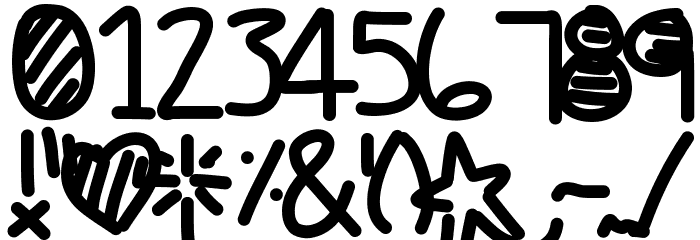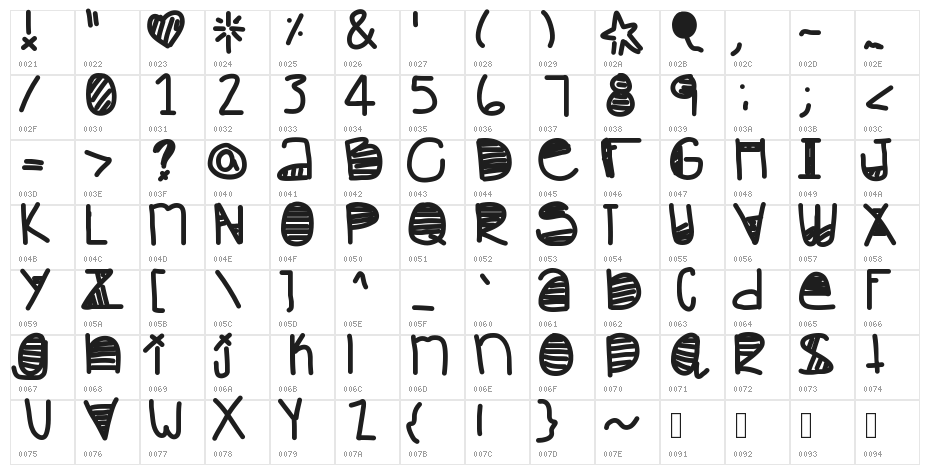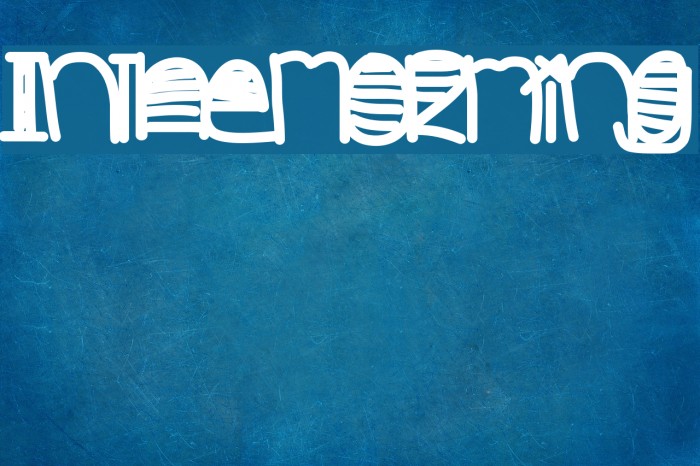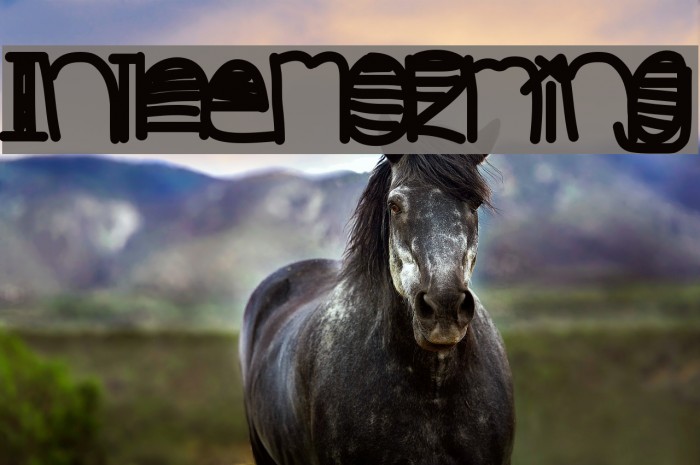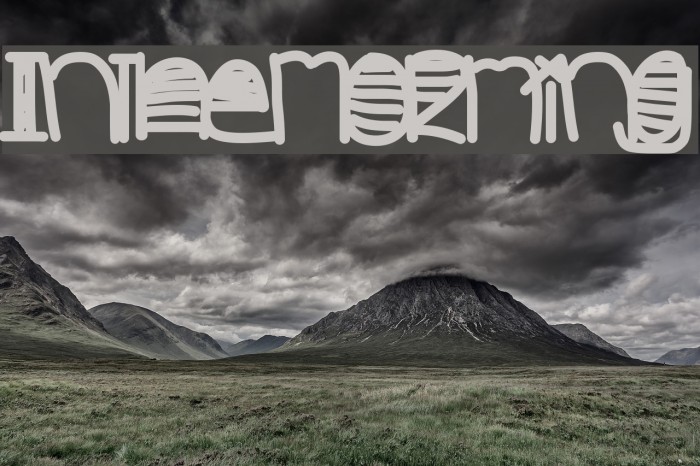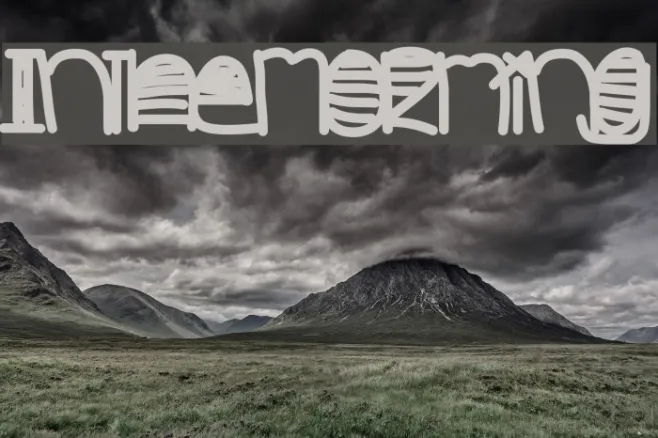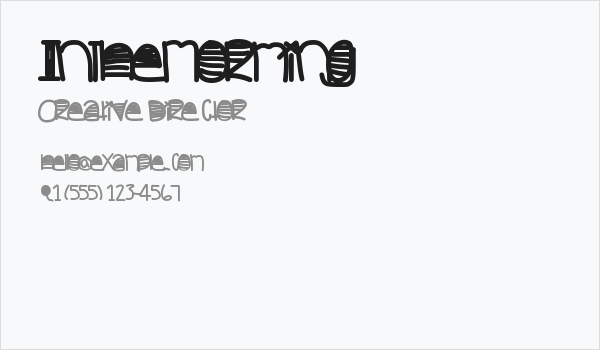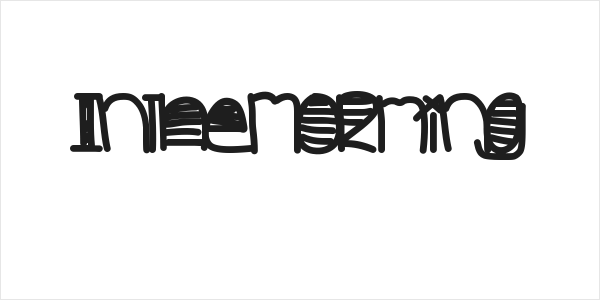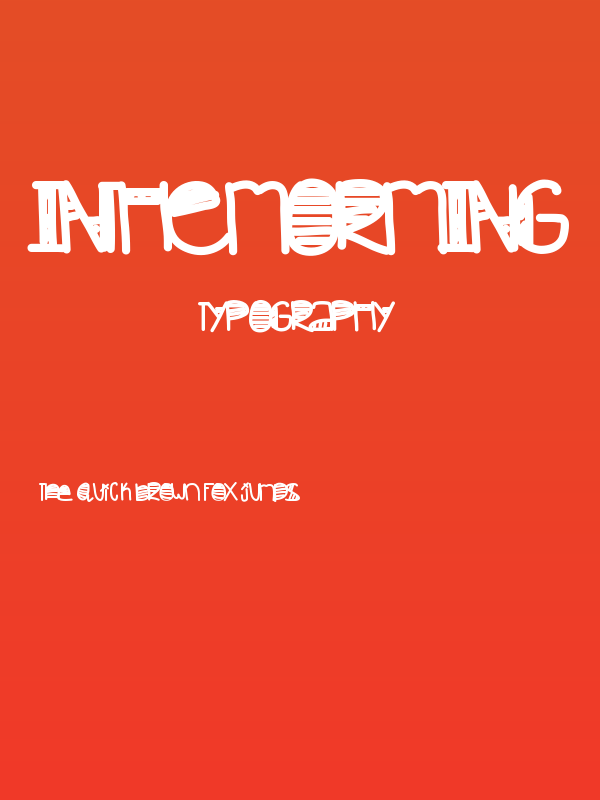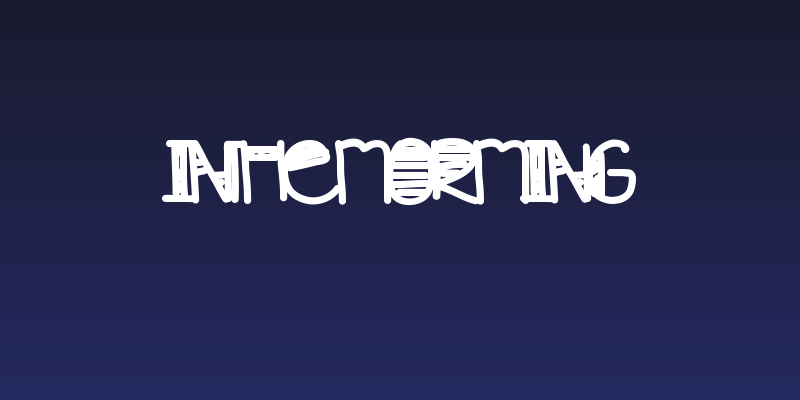
InTheMorming Font
InTheMorming Description
This font features a highly decorative and playful style, characterized by bold, thick strokes and a hand-drawn appearance. Each character is uniquely designed with a mix of solid and outlined elements, creating a dynamic and energetic look. The uppercase and lowercase letters maintain a consistent style, with exaggerated curves and angles that add to the whimsical feel. Numbers and special characters follow the same artistic approach, making the font suitable for creative and informal projects. The overall design is eye-catching and vibrant, perfect for capturing attention.
| Overall Style | Playful, Whimsical, Artistic |
| Use Case | Headlines, Posters, Creative Branding |
| Proposed Projects | Ideal for children's book covers, playful posters, creative branding, and eye-catching headlines. |